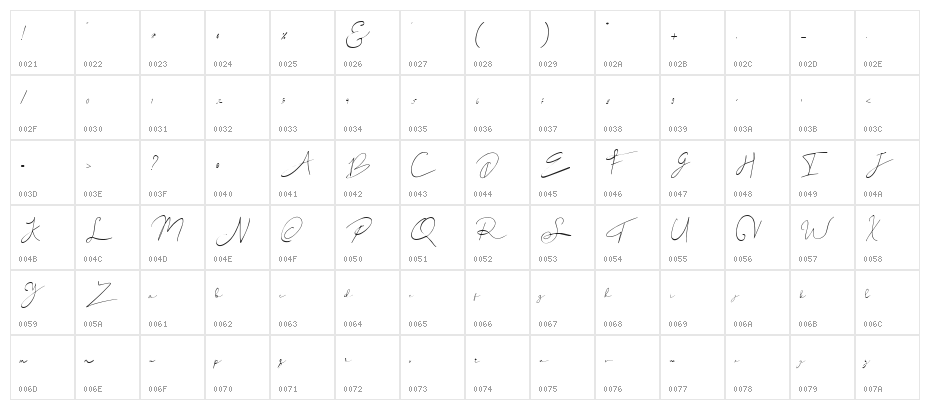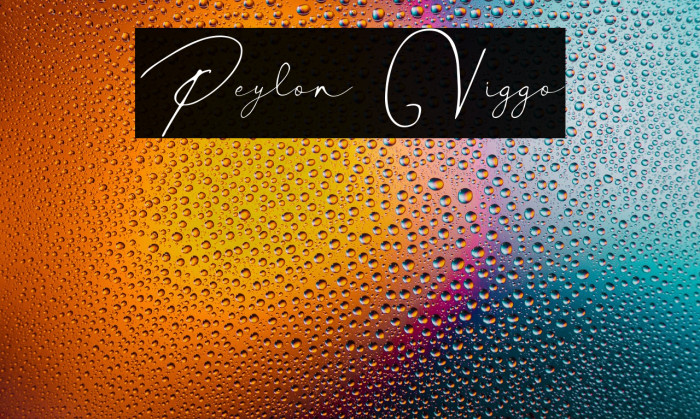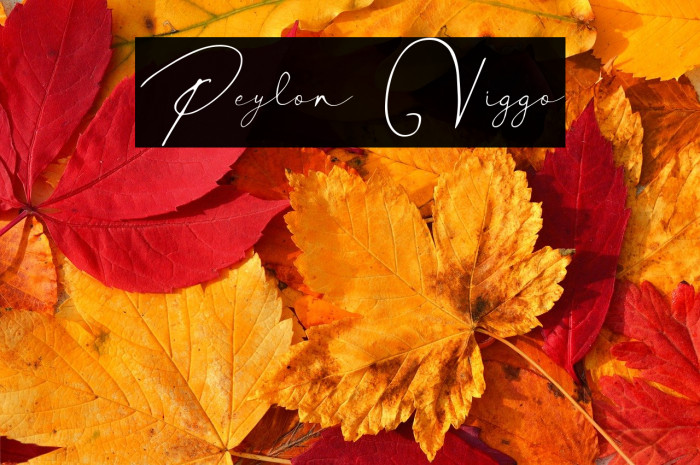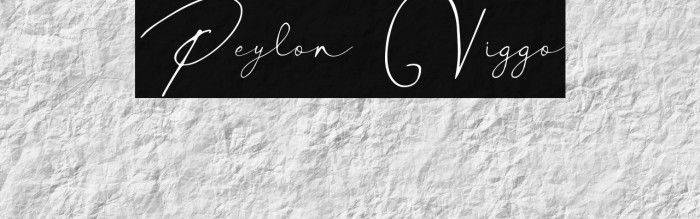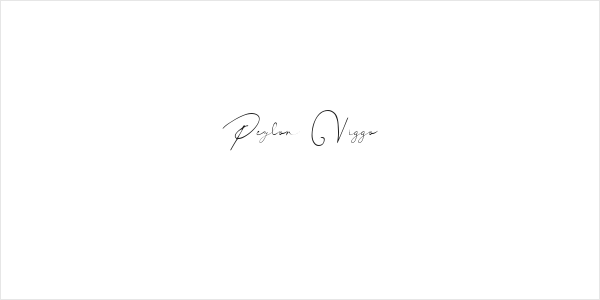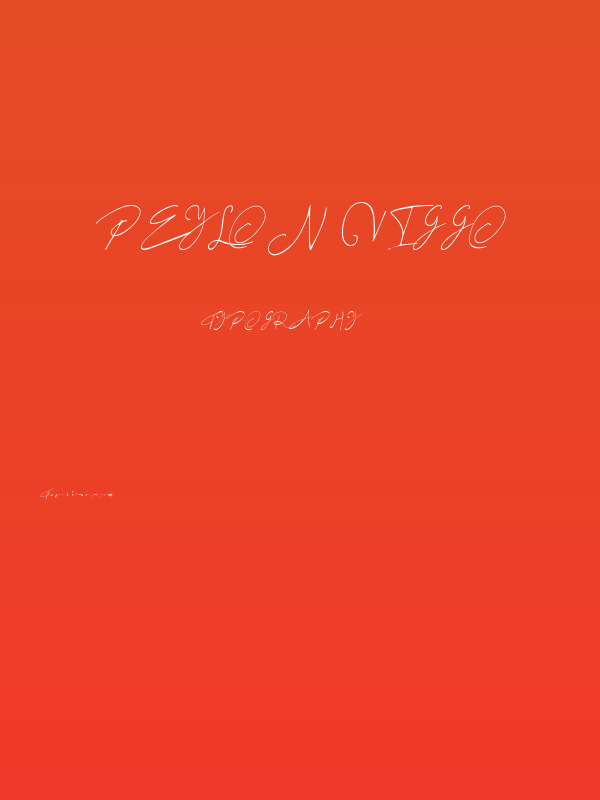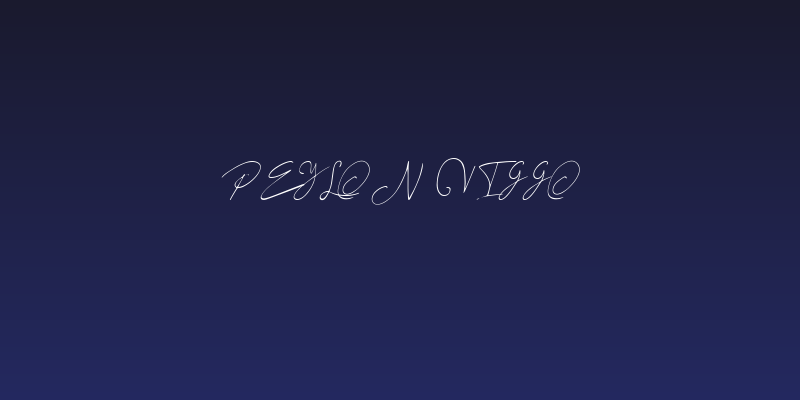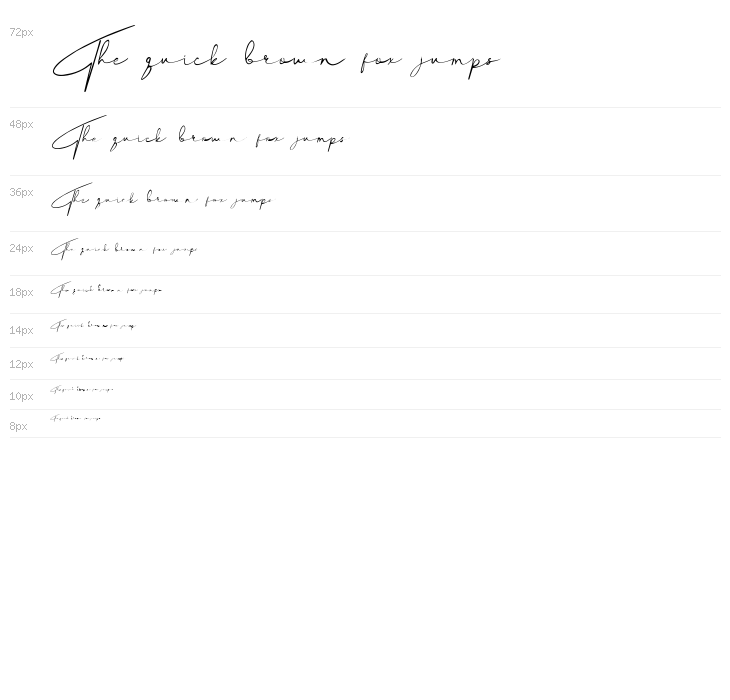
Peylon Viggo Font
Peylon Viggo Description
This elegant script font features a flowing, handwritten style with a sophisticated flair. The characters are delicately crafted with smooth curves and a graceful, fluid motion that mimics natural handwriting. The uppercase letters are slightly more elaborate, with extended strokes and loops, while the lowercase letters maintain a consistent, gentle flow. The numerals and special characters are designed to complement the overall aesthetic, maintaining the same elegant and refined appearance. This font exudes a sense of elegance and sophistication, making it ideal for formal and decorative applications.
| Overall Style | Elegant, Decorative |
| Use Case | Headlines, Invitations, Branding |
| Proposed Projects | Ideal for wedding invitations, elegant branding, personal stationery, and decorative headings. |